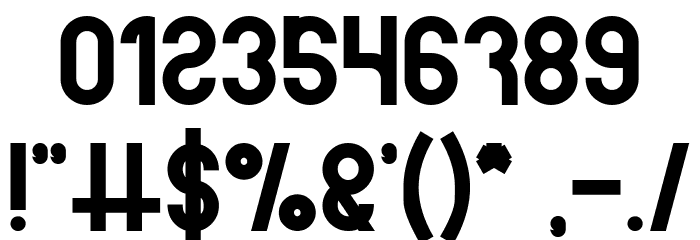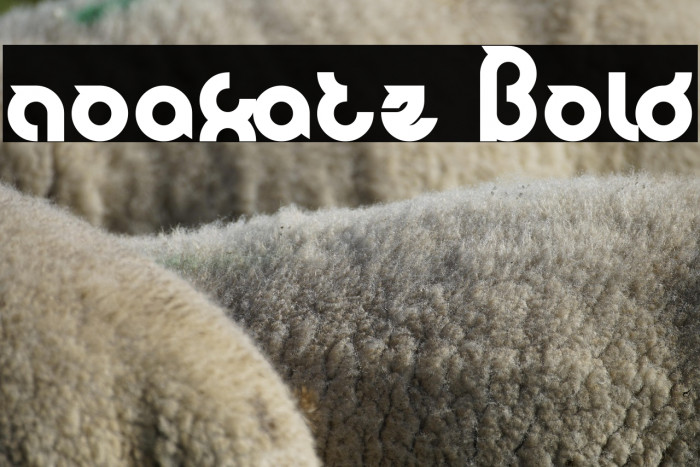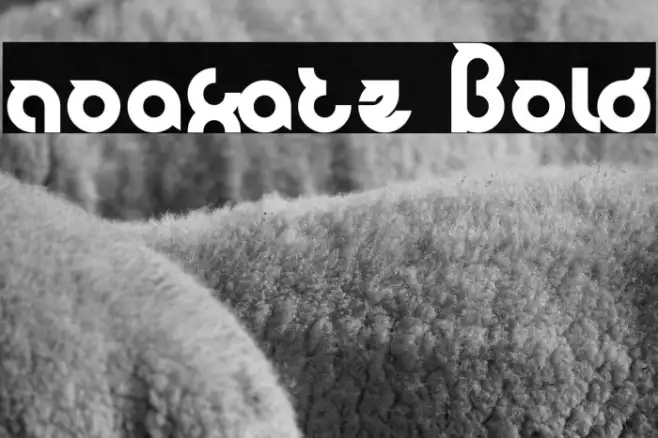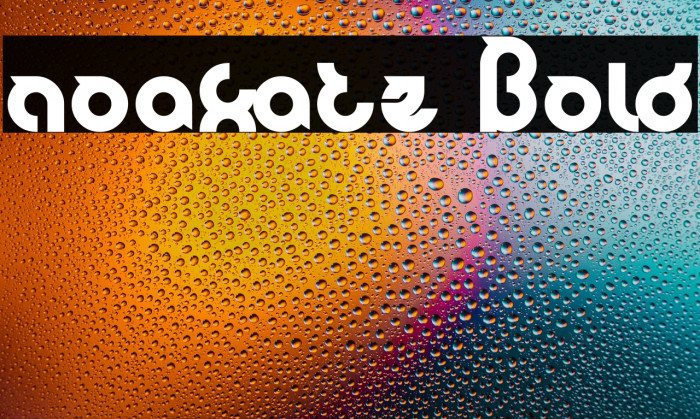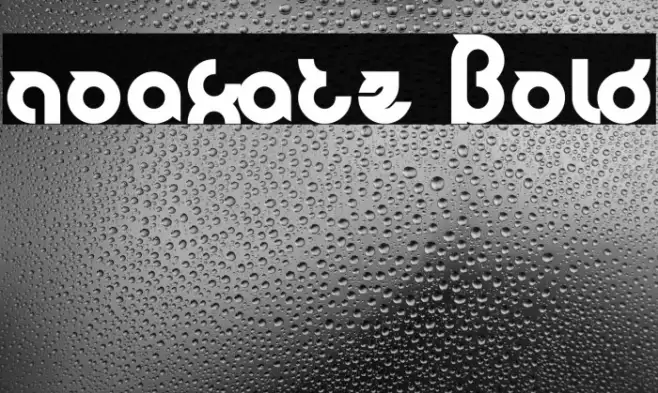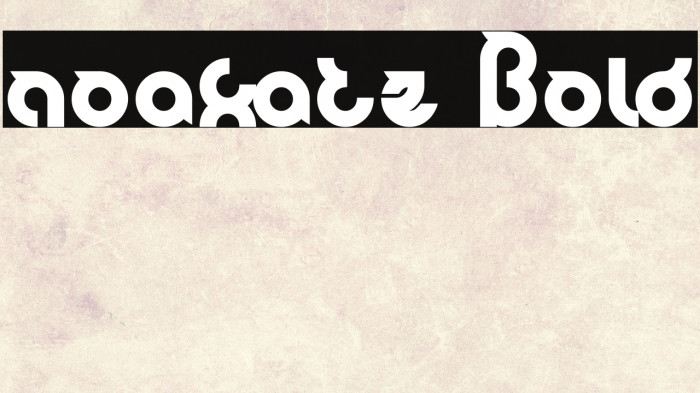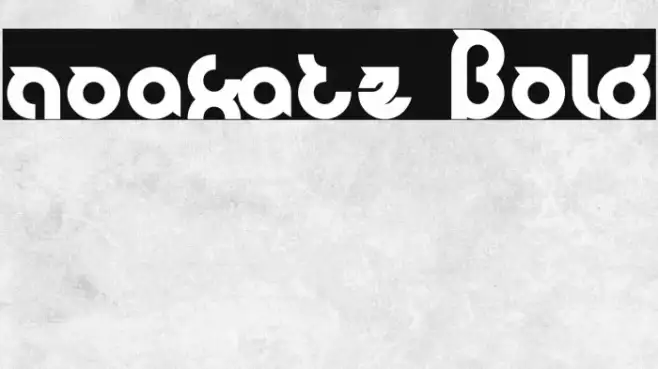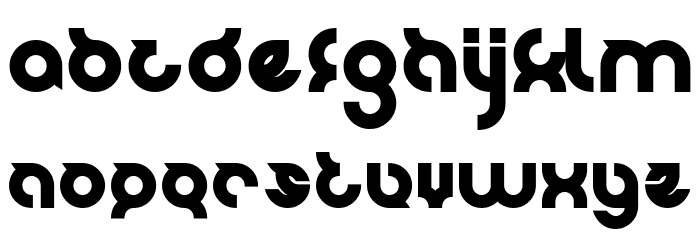
noakatz Bold Font
noakatz Bold Description
This font features a bold and striking design with a modern, geometric aesthetic. The characters are crafted with a unique blend of curves and sharp angles, creating a dynamic and eye-catching appearance. The uppercase letters are particularly distinctive, with a strong presence that commands attention. The lowercase letters maintain the same bold style, ensuring consistency throughout the text. Numbers and special characters are equally bold, making them stand out in any context. The overall design is both contemporary and versatile, suitable for a variety of creative applications.